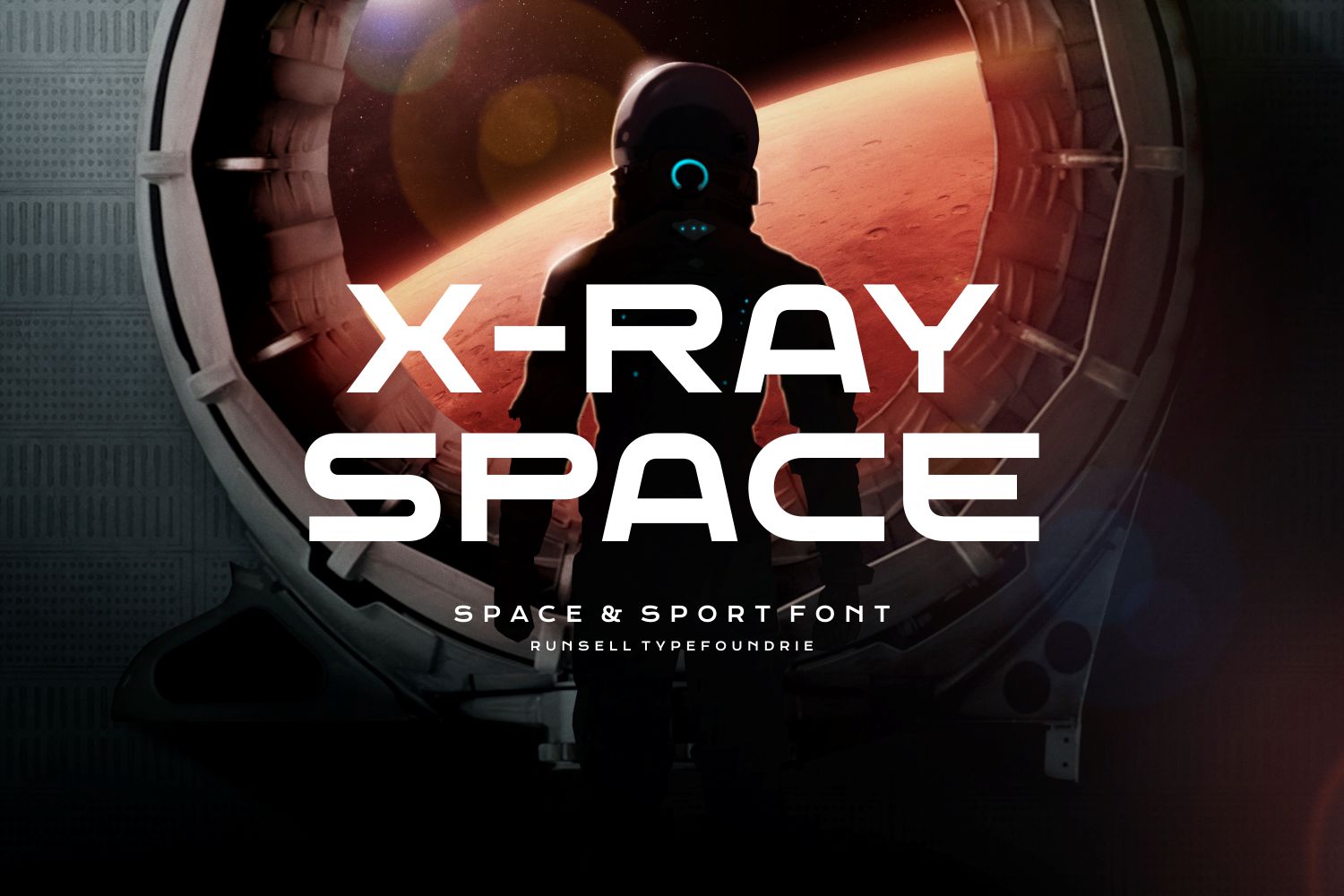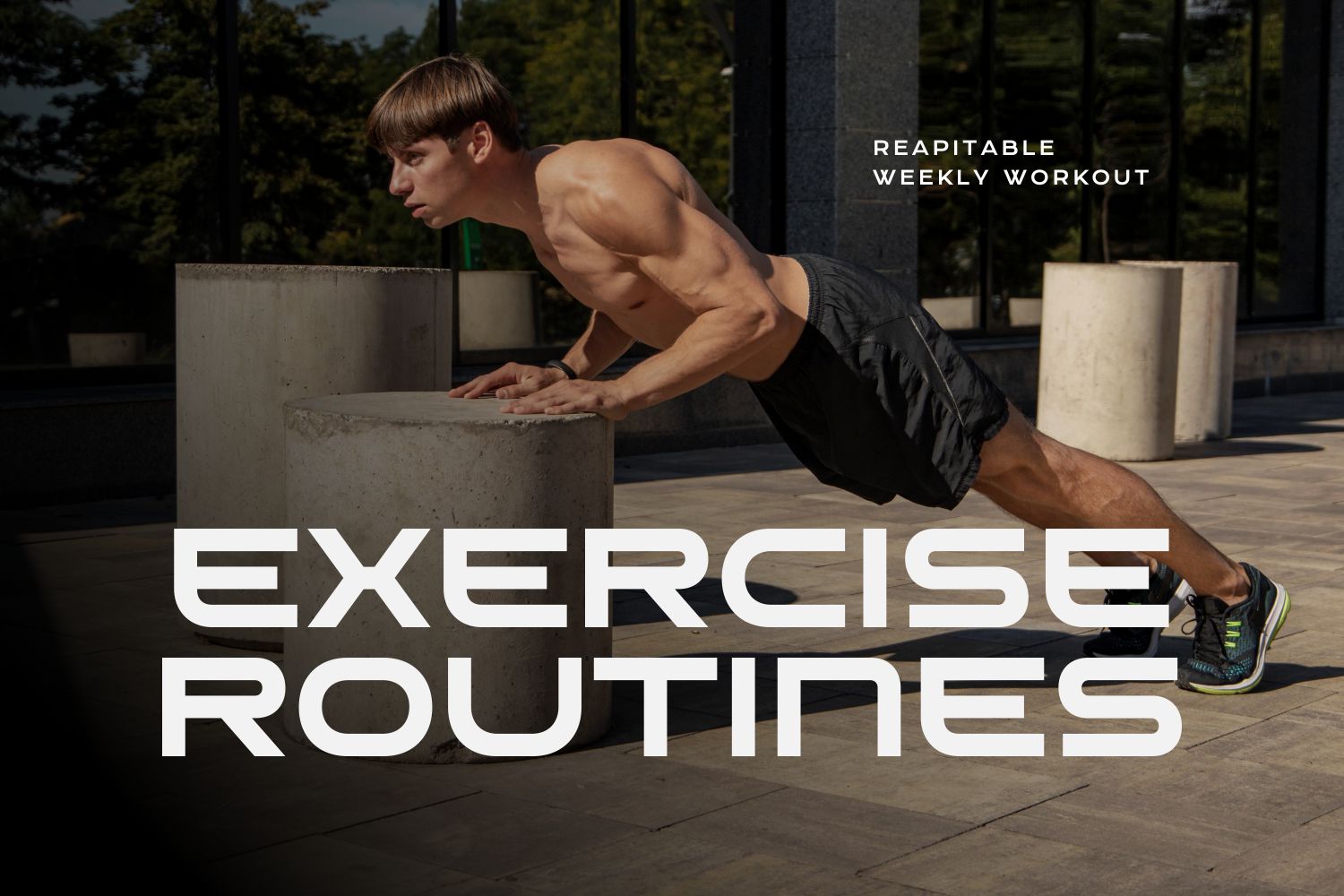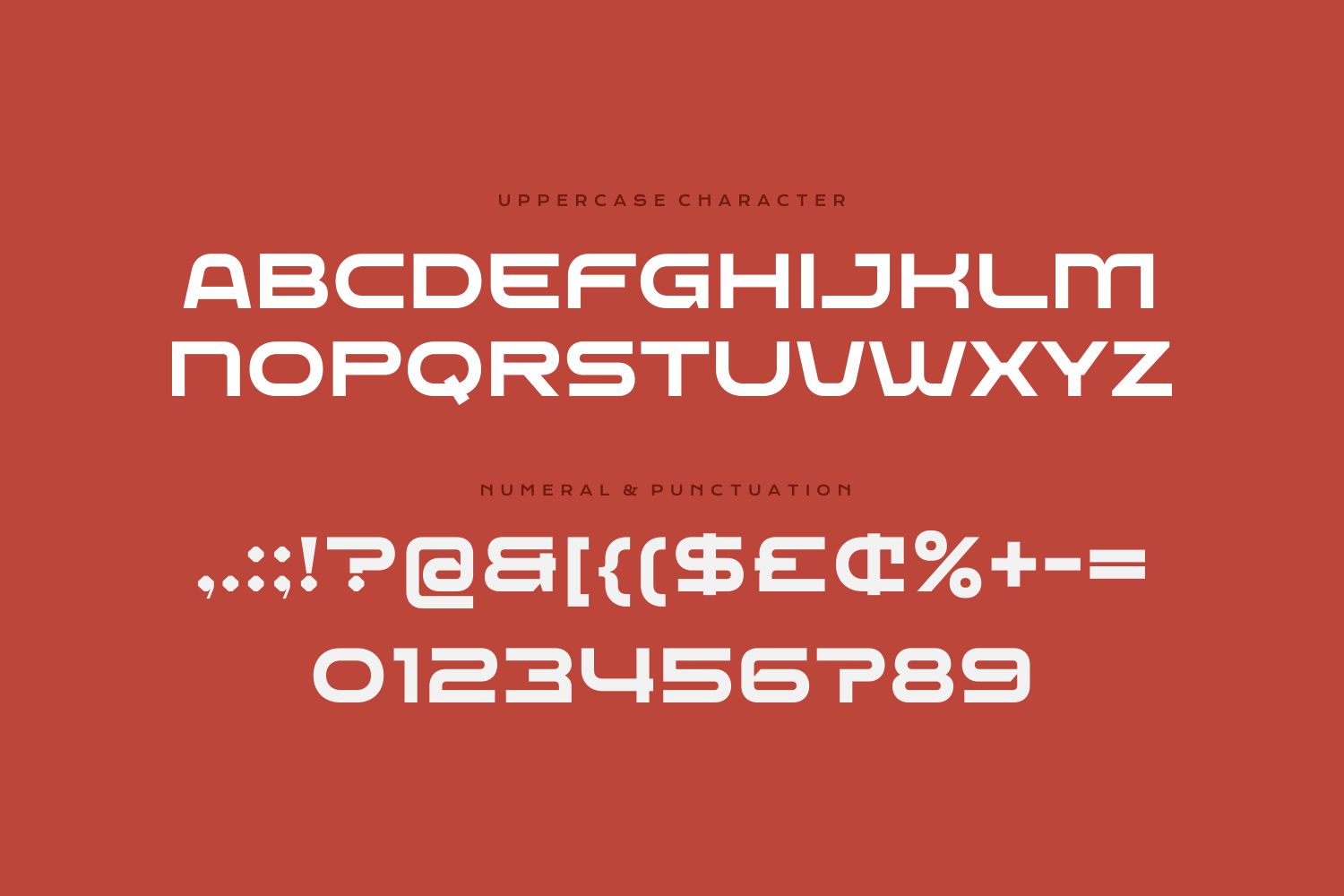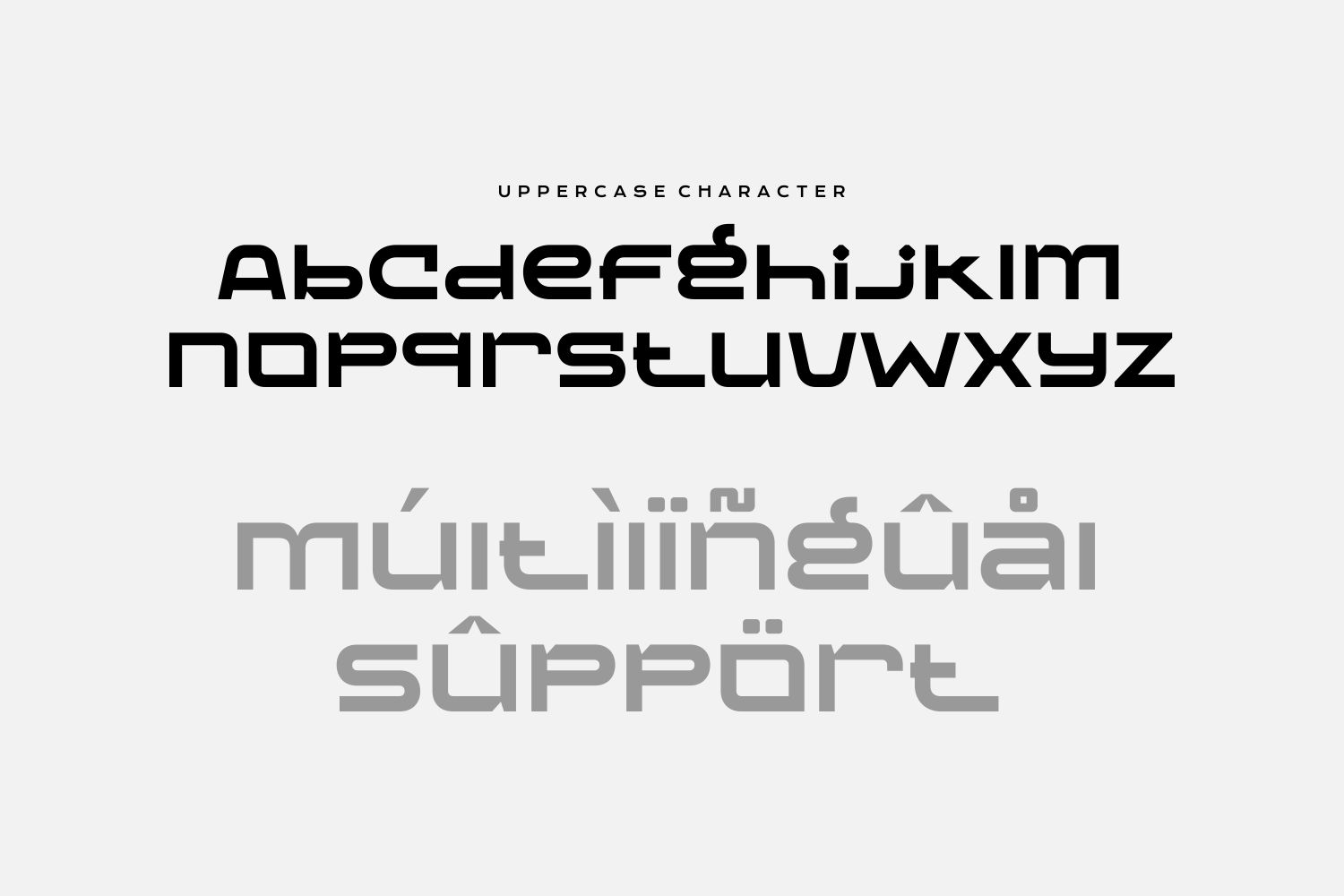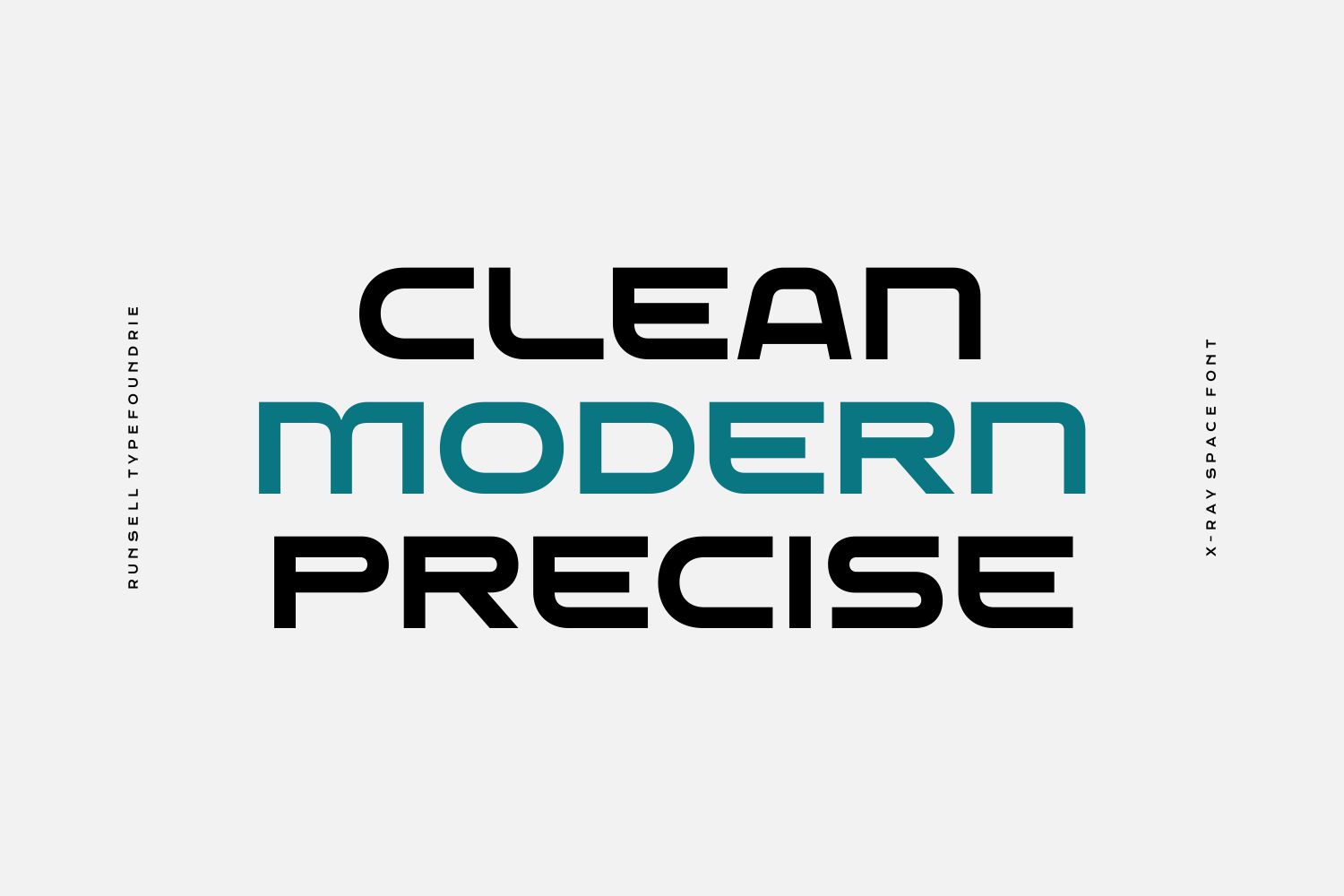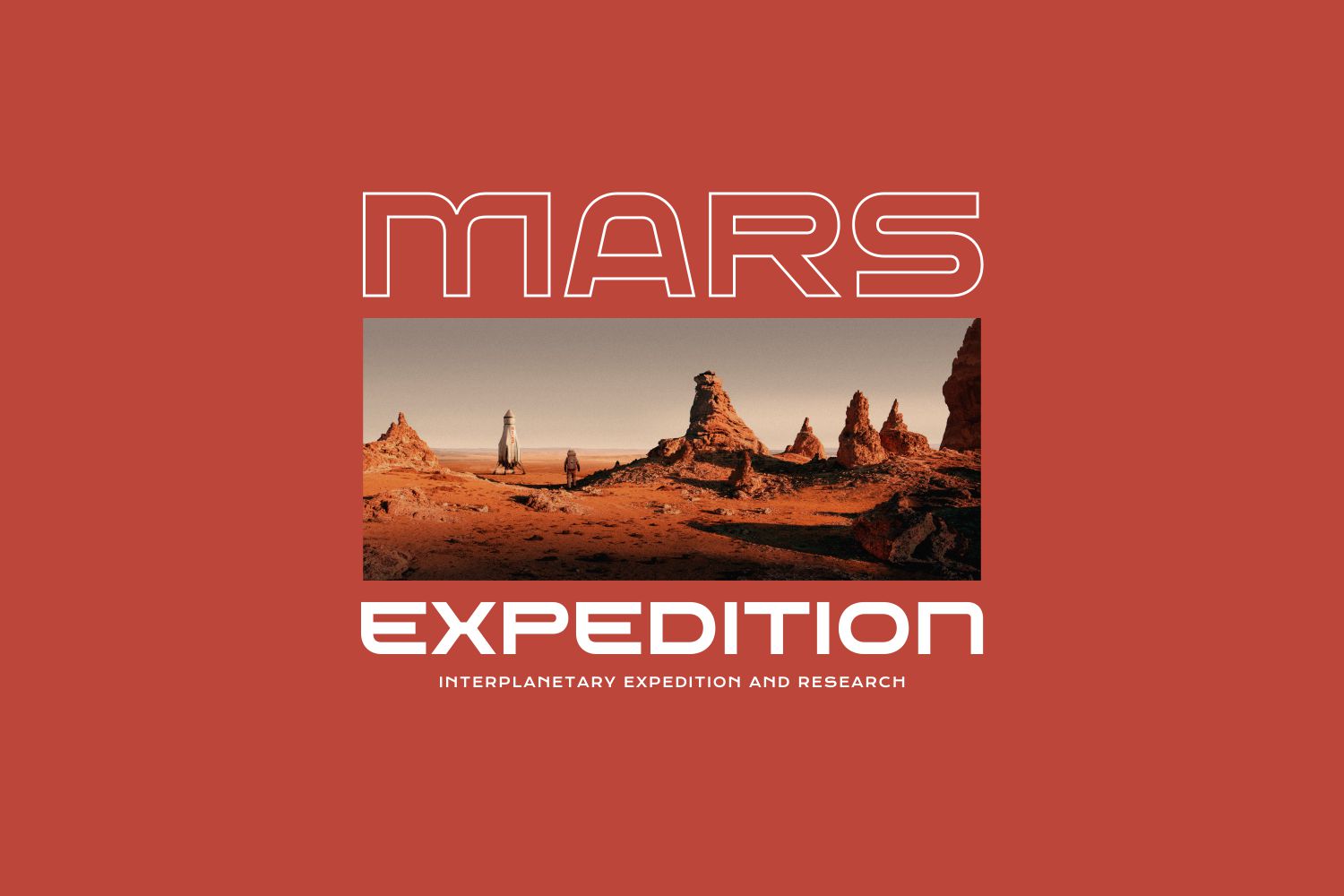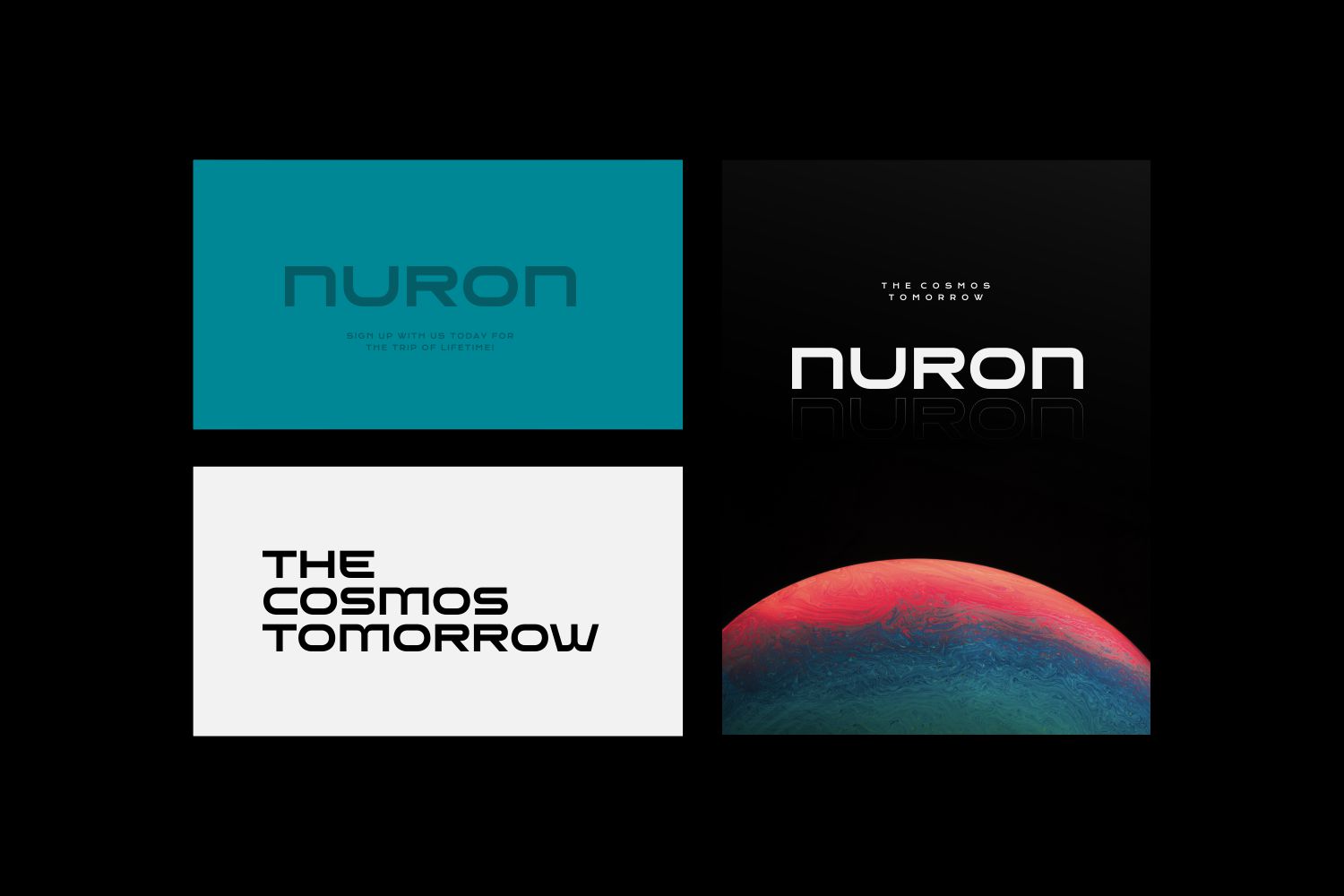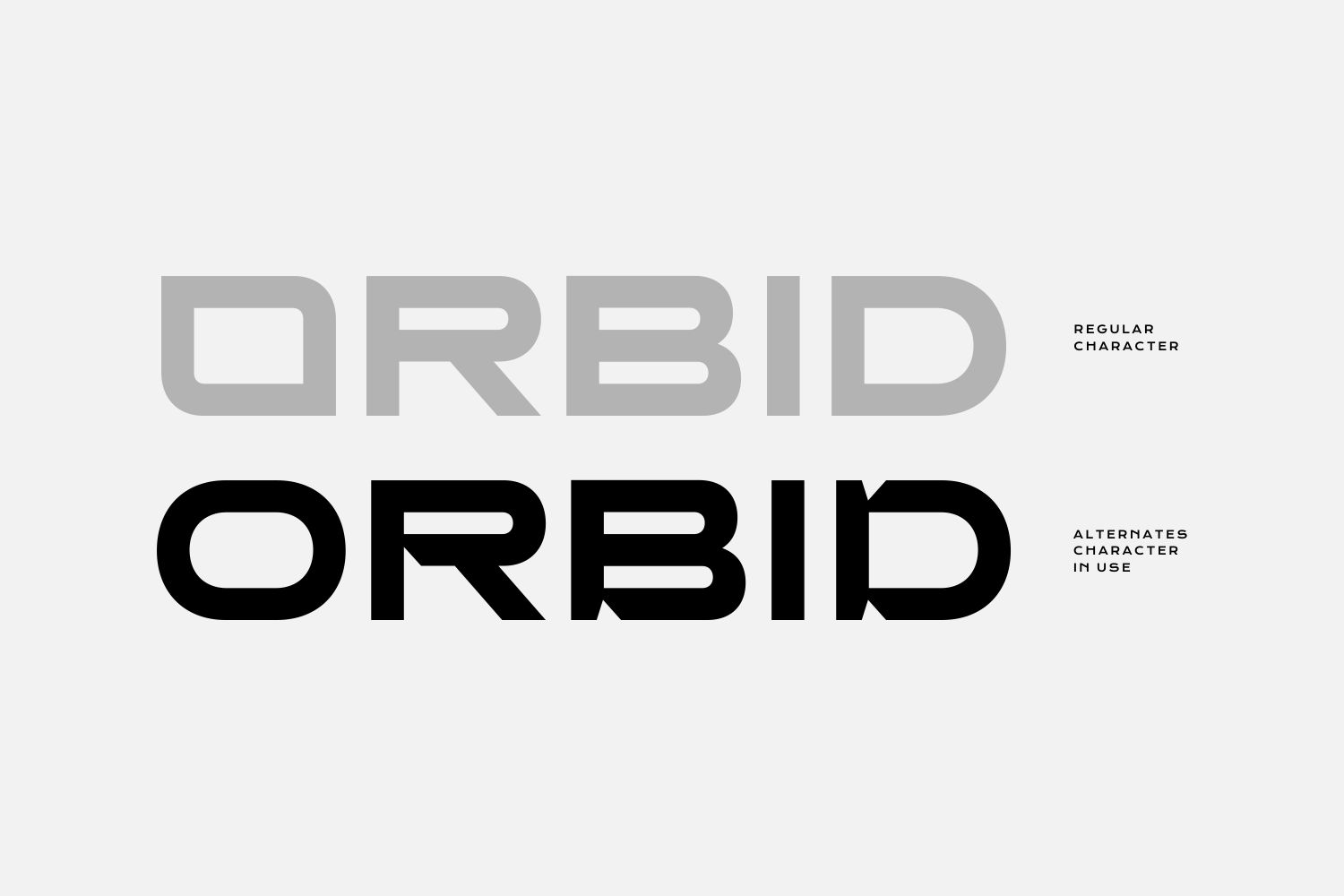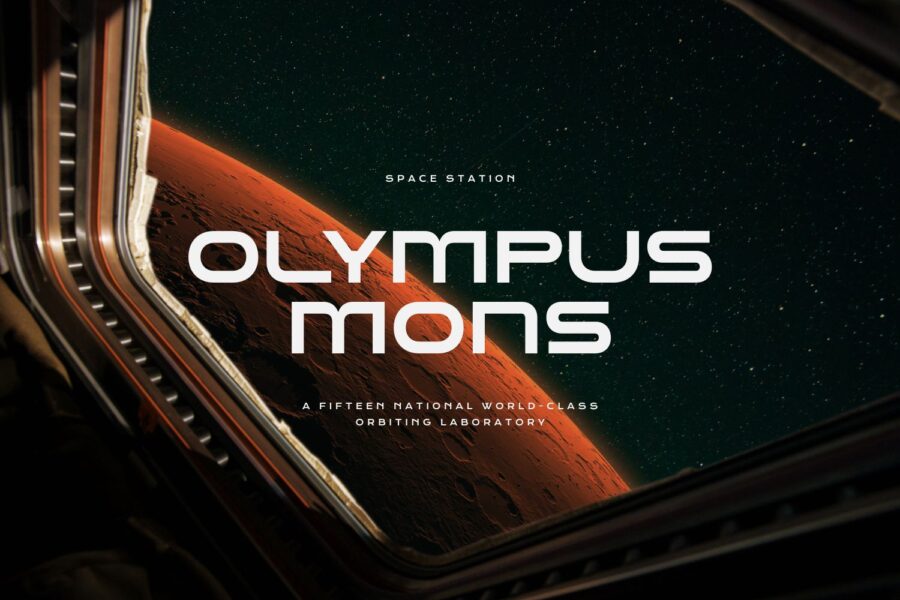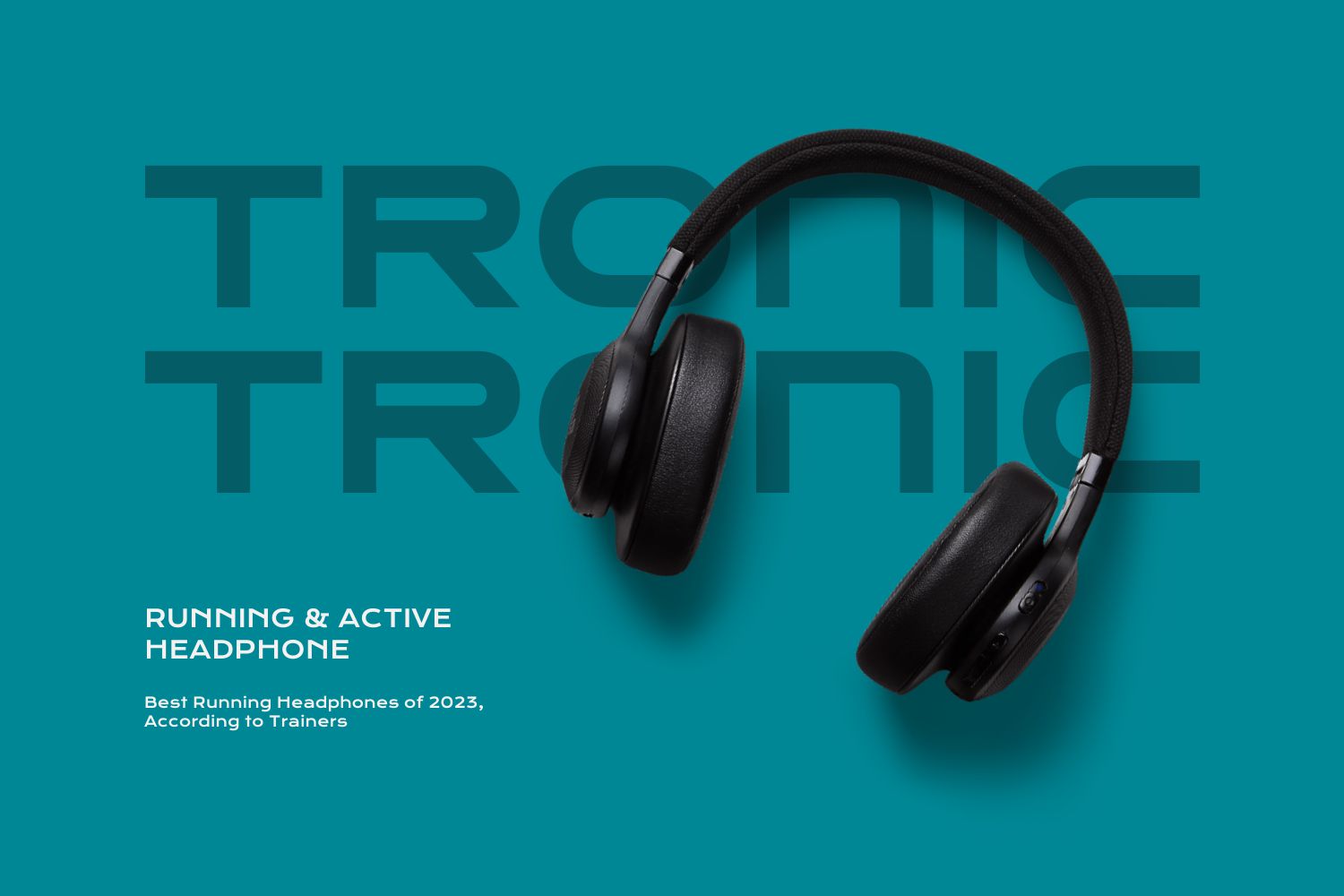
X-Ray Space
Glyphs for X-Ray Space
X-Ray Space is a futuristic sans-serif display font designed for sci-fi, sports, and tech-forward branding. With a clean geometric construction and sharp, modular forms, it brings a sleek, high-performance aesthetic to everything from space exploration themes to athletic gear packaging. The squared curves and consistent weight offer a bold, impactful presence—perfect for headlines, posters, and digital interfaces.
This font includes alternate characters and ligatures that add flexibility and a distinct futuristic personality to your typography. Whether you’re designing for interplanetary missions, sci-fi titles, or performance wear ads, X-Ray Space delivers clarity, energy, and modernism in every letterform.